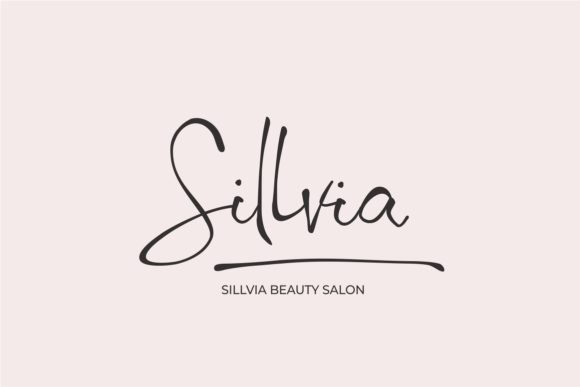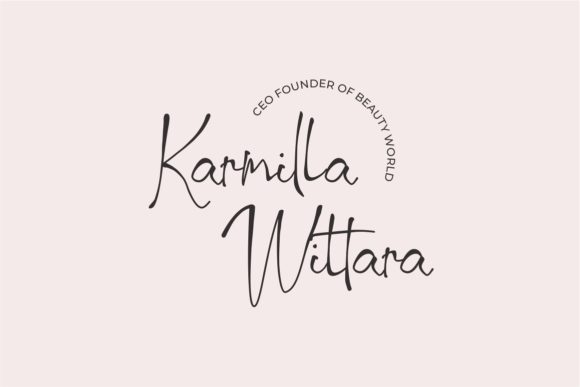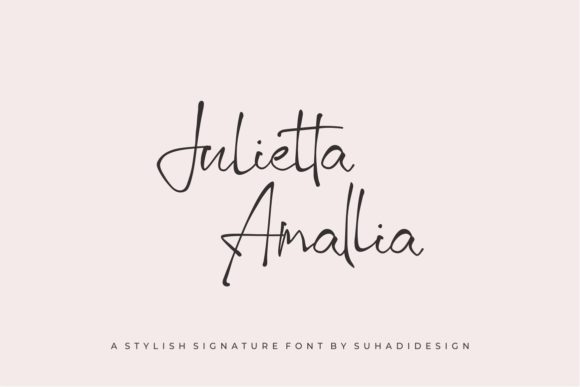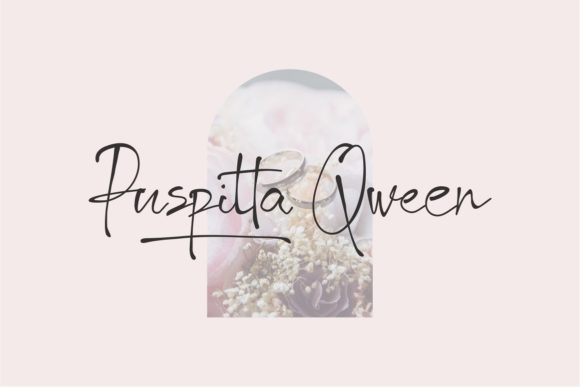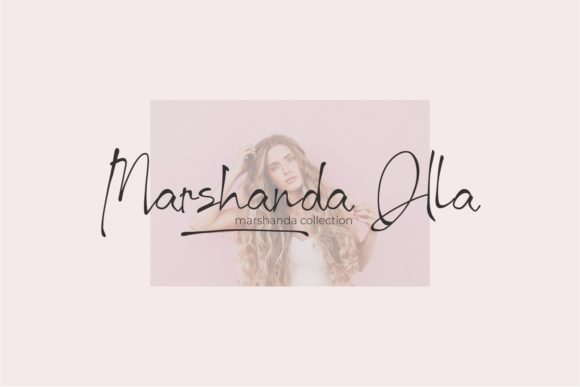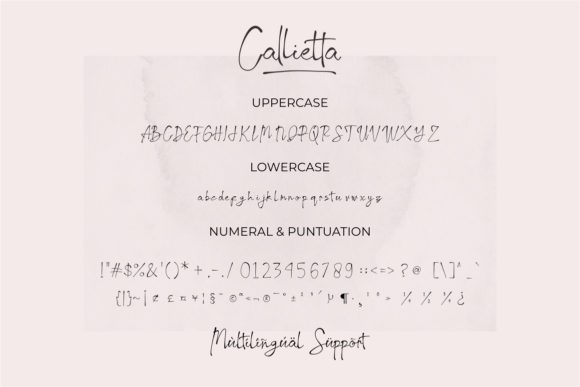
The Quest for the Perfect Font: Discovering Callietta
I still remember the frustration of scrolling through font after font, searching for the perfect one to complement my design project. It was a wedding invitation suite, and I needed a script font that exuded elegance and sophistication. Hours turned into days, and my creative well was running dry. That’s when I stumbled upon Callietta, a free-flowing script font that stole my heart. In this article, I’ll share my experience with Callietta, its features, and how to make the most of this beautiful font.
What Makes Callietta Special?
Callietta is a stunning script font designed for packaging products, invitation cards, flyers, mockups, event posters, and any project that demands high-quality vibes. Its balanced character and beautiful flow make it an excellent addition to any design pool.
The font comes with some fantastic features:
- ✨ PUA encoded: Easily access all glyphs and swashes.
- ✅ High-quality design: Perfect for large designs and high-resolution prints.
- 🎨 Versatile: Suitable for various design projects, from invitations to event posters.
Callietta has won me over with its:
- ✨ Elegant and flowing script style.
- ✅ Beautifully balanced characters.
- 🌈 Extensive range of glyphs and swashes.
While Callietta is an excellent font, there are a few things to keep in mind:
- 🤔 Some characters may require manual kerning for optimal results.
- ⚠️ Not all platforms support OpenType features, which might limit some advanced typography options.
The Story Behind Callietta
Callietta was designed with the intention of creating a beautiful, elegant script font that would meet the demands of high-end design projects. The designer aimed to craft a font that exudes sophistication and refinement, making it perfect for special occasions and luxury brands.
| Font Name | Callietta Font |
| Author | suhadidesign |
Q: What is PUA encoding, and how does it benefit Callietta?
A: PUA (Private Use Area) encoding allows for easy access to glyphs and swashes, making it simpler to use the font’s advanced typography features.
Q: Is Callietta suitable for body text?
A: While Callietta is a beautiful font, it’s primarily designed for display purposes. For body text, a more legible font might be more suitable.